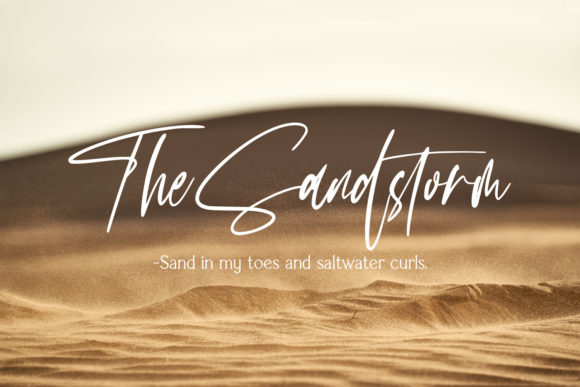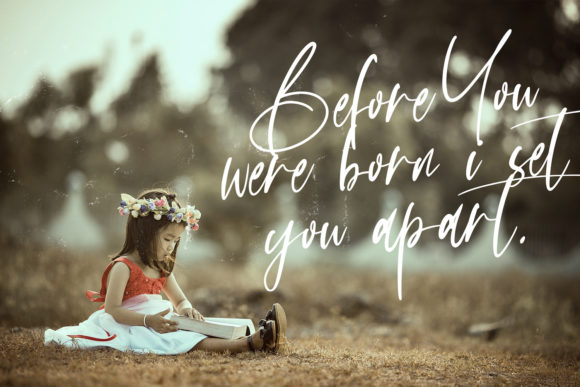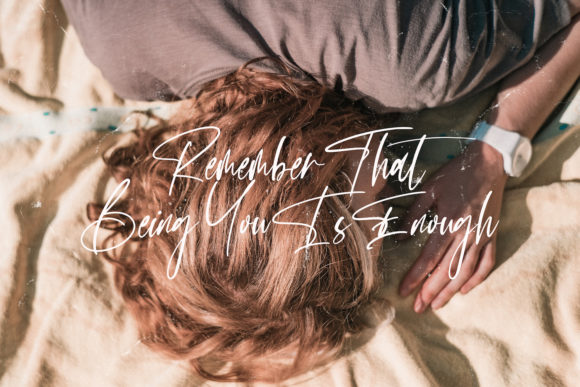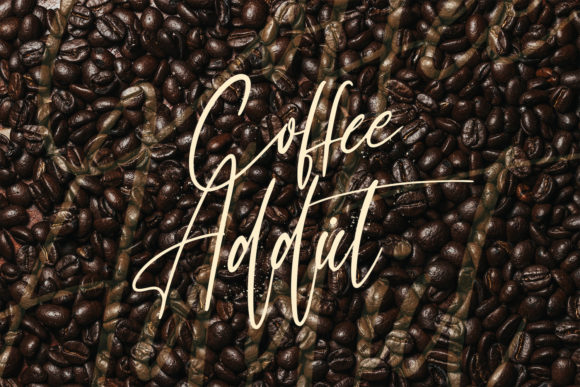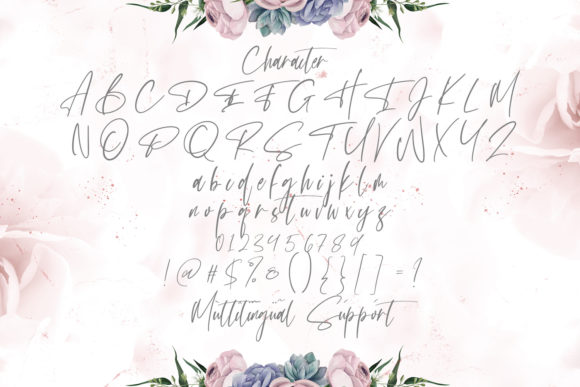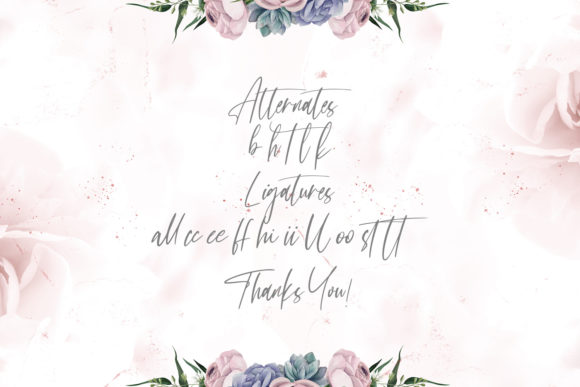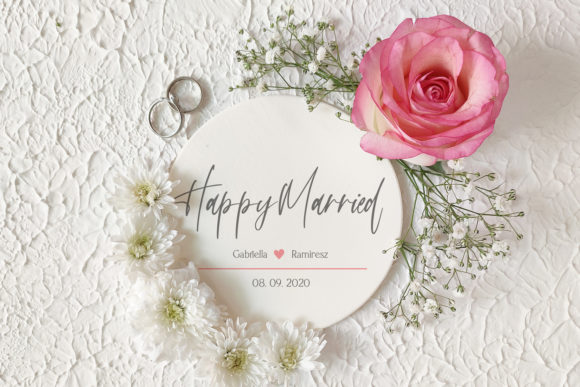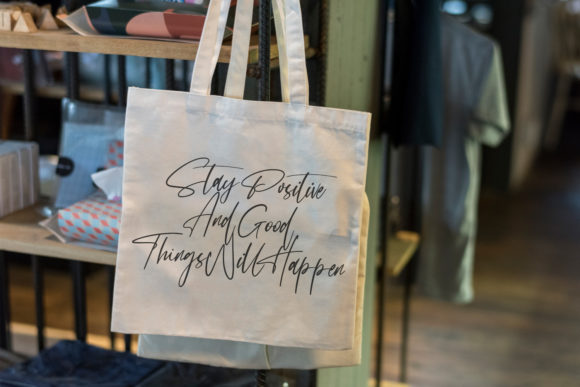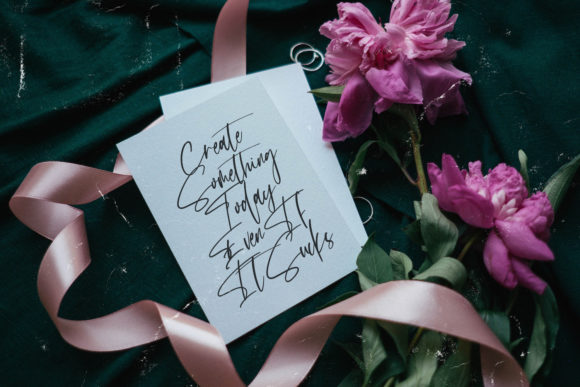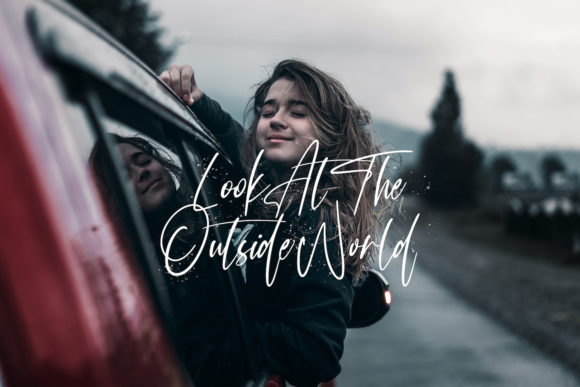
Hunthers Dwayne Font
About Hunthers Dwayne Font
Hunthers Dwayne is a delicate and elegant handwritten font that exudes a sense of sophistication and charm. With its flowing and well-balanced characters, this font is a versatile choice for a wide range of design projects. Whether you’re working on branding, invitations, social media graphics, logos, or any creative endeavor, Hunthers Dwayne will add a touch of refinement and style to your work.
Here are some creative ideas to make the most of Hunthers Dwayne font:
1. Wedding Invitations: Use Hunthers Dwayne font to create romantic and elegant wedding invitations that set the tone for the special day.
2. Branding and Logos: Elevate your brand identity with Hunthers Dwayne font, combining modern elegance with a personalized touch.
3. Greeting Cards: Design heartfelt and sophisticated greeting cards for various occasions, leaving a lasting impression on the recipients.
4. Social Media Graphics: Apply Hunthers Dwayne font to your social media posts and graphics, creating a cohesive and stylish visual presence.
5. Stationery: Enhance your stationery designs with the graceful curves and timeless appeal of Hunthers Dwayne font.
6. Quote Designs: Create visually appealing quote designs that inspire and engage your audience with the elegant charm of Hunthers Dwayne font.
7. Packaging Design: Use Hunthers Dwayne font for product packaging to add a sense of luxury and sophistication to your brand.
8. Personal Projects: Embrace the versatility of Hunthers Dwayne font for personal projects such as art prints, posters, or customized gifts.
9. Magazine Headings: Use Hunthers Dwayne font for magazine headings and titles to create a polished and eye-catching layout.
10. Event Signage: Apply Hunthers Dwayne font to event signage, adding an elegant touch to the overall decor.
11. Photography Watermarks: Add a signature touch to your photography by using Hunthers Dwayne font as a watermark.
12. Labels and Tags: Use Hunthers Dwayne font for product labels or tags to give your merchandise a sophisticated look.
13. Website Headers: Create an appealing website header with the unique charm and flow of Hunthers Dwayne font.
14. Book Covers: Apply Hunthers Dwayne font to book covers to create a sense of elegance and allure that draws readers in.
15. Personalized Gifts: Use Hunthers Dwayne font to create personalized gifts for friends and family, making each item feel special and unique.
No matter the project, Hunthers Dwayne font will elevate your designs and add a touch of elegance and sophistication. Its well-balanced characters and flowing style make it a perfect choice for a variety of creative ideas. So, unleash your imagination, add Hunthers Dwayne font to your toolkit, and watch your designs come alive with grace and beauty.